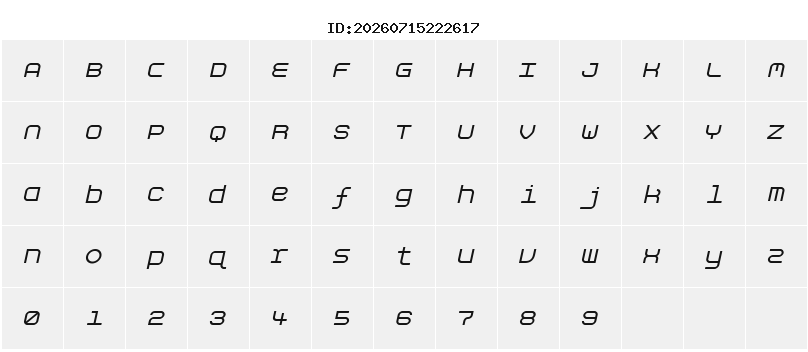
Aspirin-Intoxicate Preview
• Font Name: Aspirin-Intoxicate
• Full Font Name: Aspirin-Intoxicate-Regular
About Aspirin-Intoxicate.ttf
Aspirin-Intoxicate.ttf is a modern, elegant sans-serif font designed for ultimate readability and visual harmony. Perfect for branding, headlines, web design, and print materials.